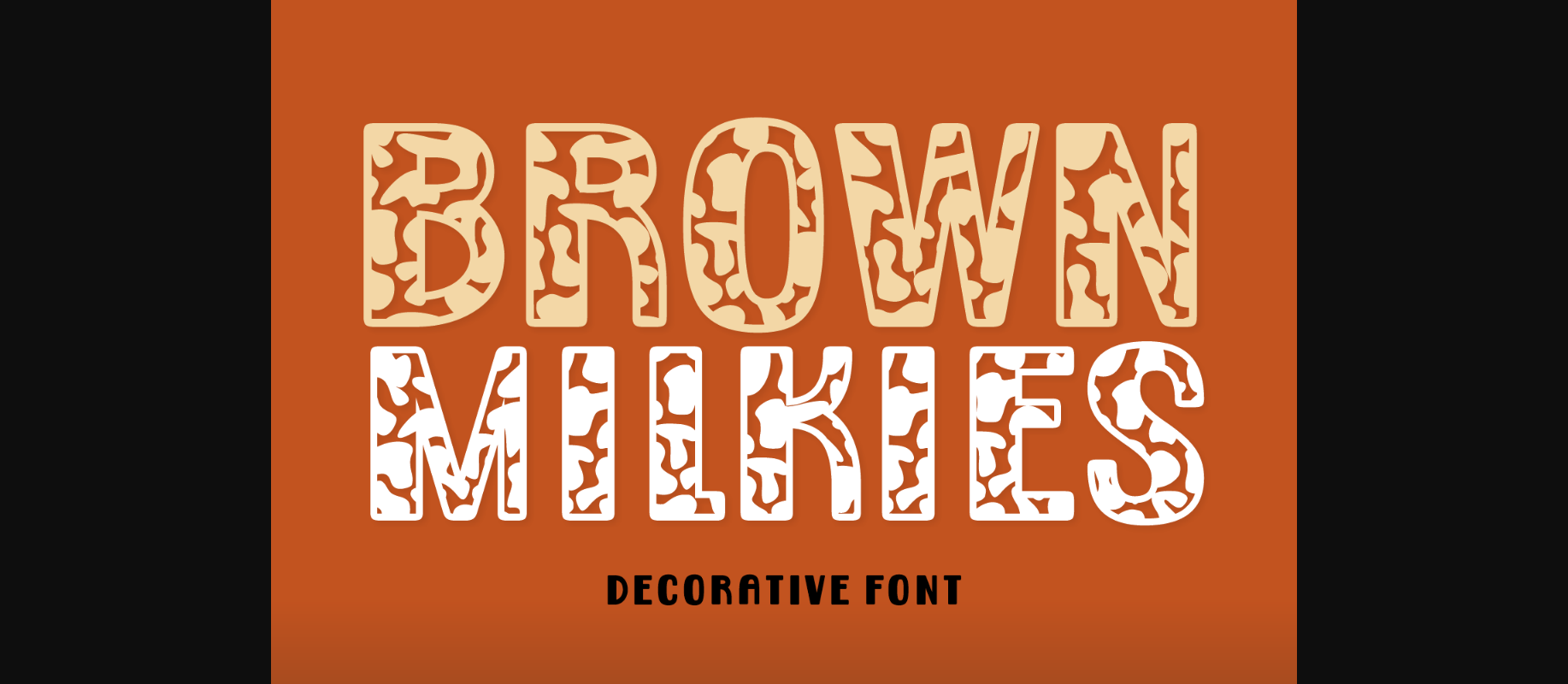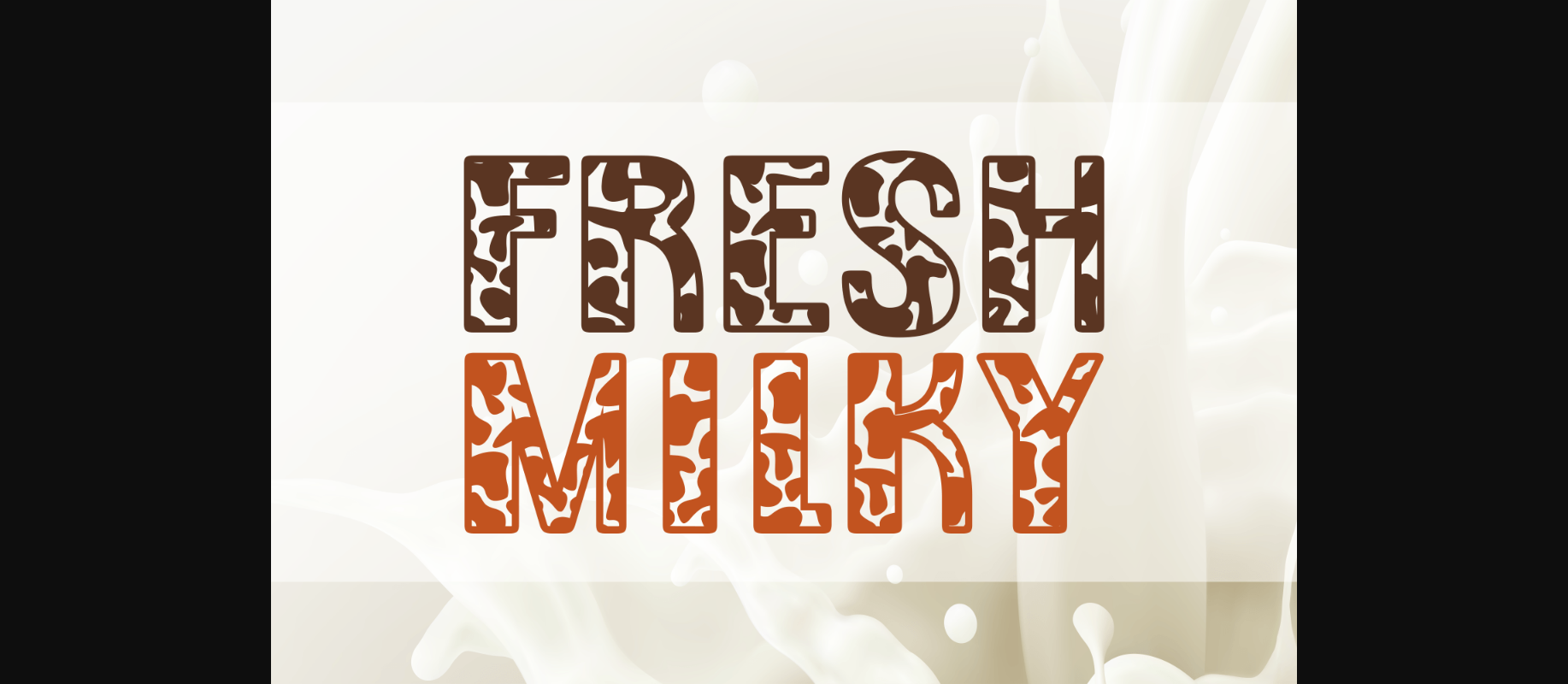
About Brown Milkies Font
Brown Milkies is a fun and playful decorative font with a cow spots motive. This joyful typeface is perfect for farm-themed projects, dairy product designs, and more. Use it to add some charm to your typography!